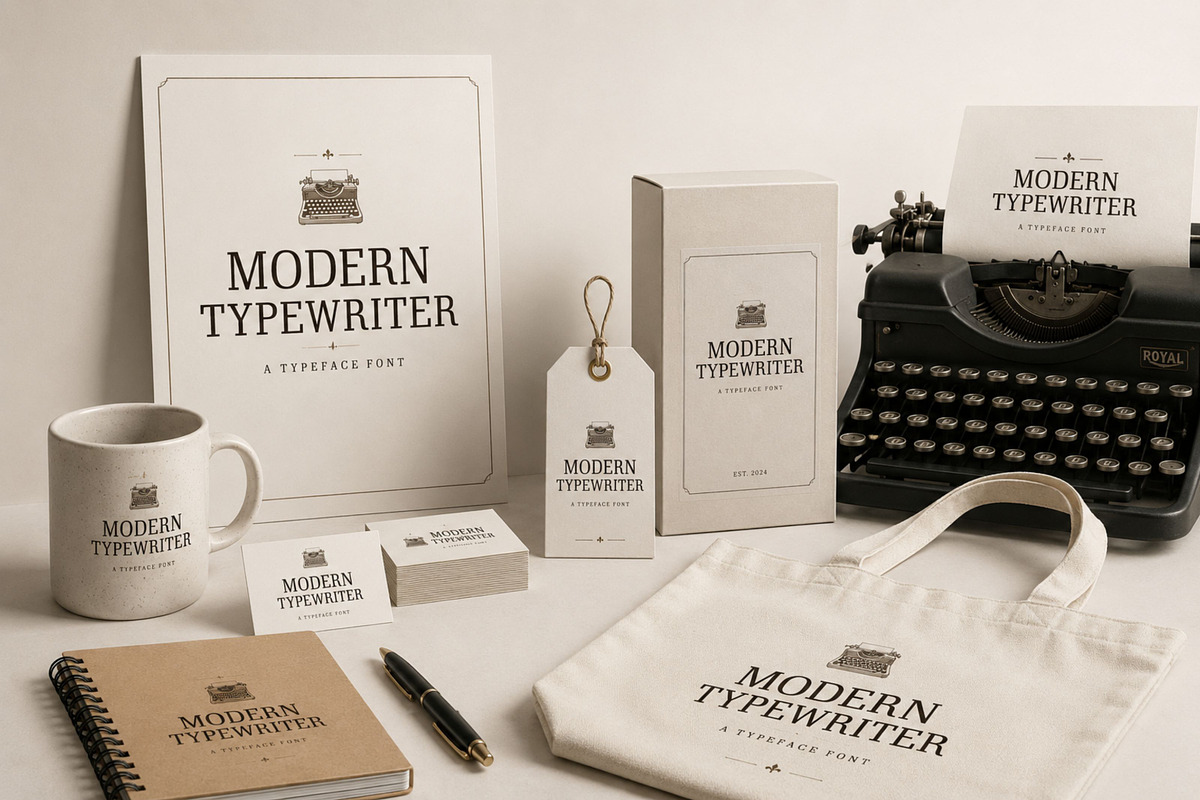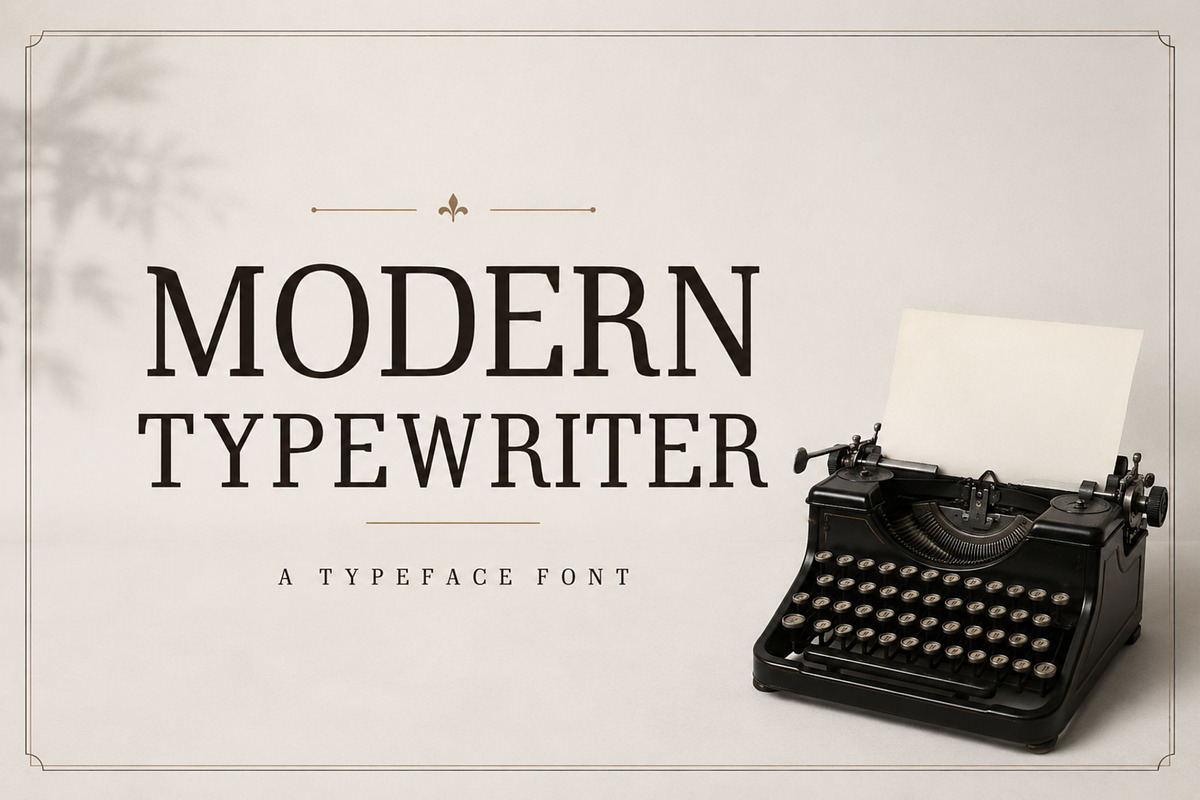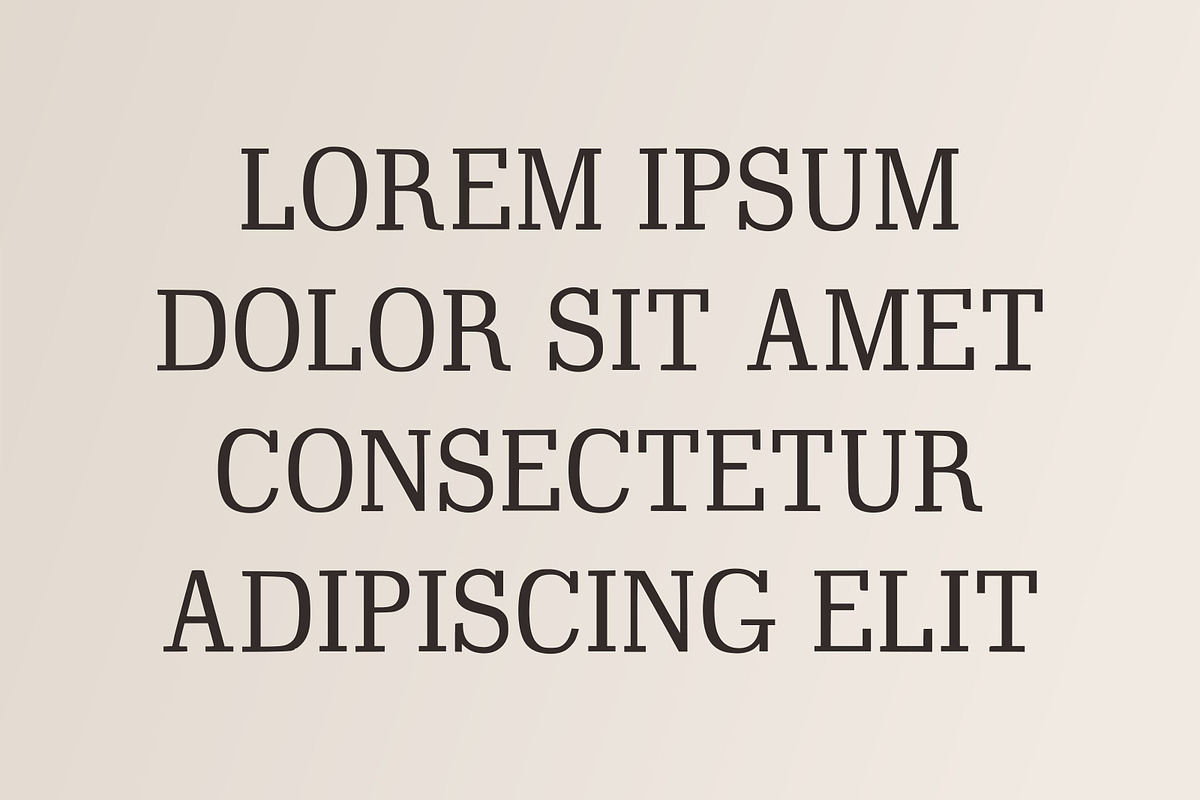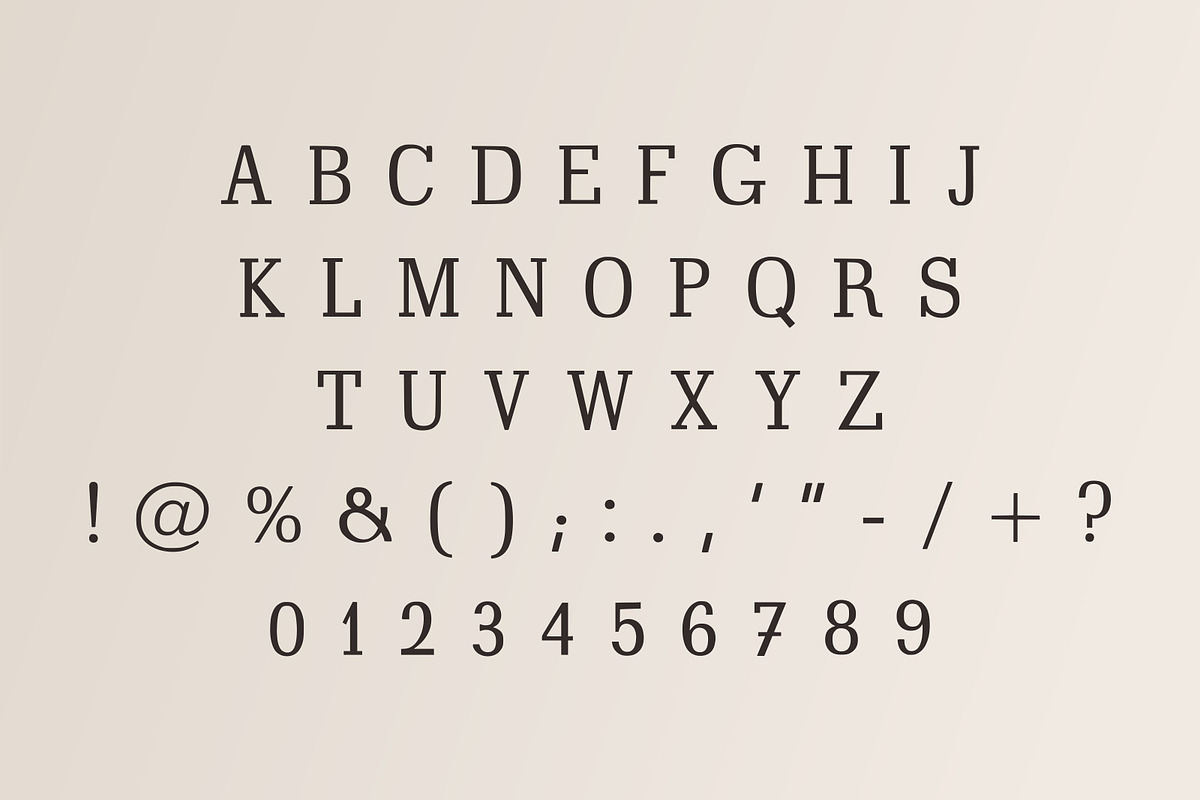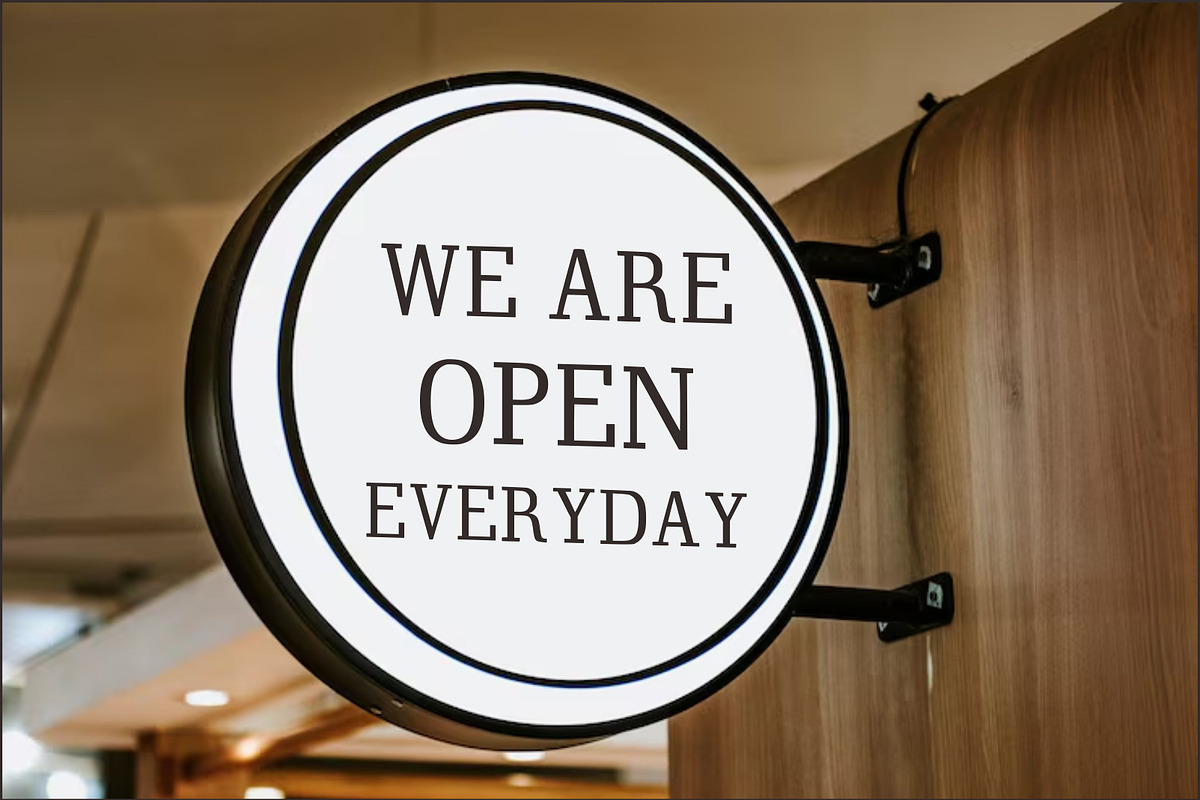
Modern Typewriter – Elegant Vintage
Modern Typewriter is a stylish display serif font inspired by classic typography and vintage typewriter aesthetics. It features strong, elegant serifs, dramatic contrast, and a timeless appearance that adds character and sophistication to any design.
Perfect for designers looking to create a classic yet modern visual identity, this typeface works beautifully for logos, branding, editorial designs, magazine covers, posters, packaging, wedding stationery, apparel, signage, social media graphics, and more.
Its distinctive appearance makes it especially suitable for luxury, retro, editorial, fashion, heritage, and sophisticated branding projects.
Elegant vintage-inspired serif design
Classic typewriter aesthetic with a modern touch
Bold and sophisticated display appearance
Suitable for headlines and prominent typography
Perfect for branding and editorial projects
Great for print and digital designs
Works well for vintage, luxury, retro, and classic themes
Recommended Uses: Logo Design, Branding, Editorial, Magazine Covers, Posters, Packaging, Labels, Invitations, Wedding Stationery, Apparel, Book Covers, Headlines, Signage, Social Media Graphics, Advertising, Product Branding.